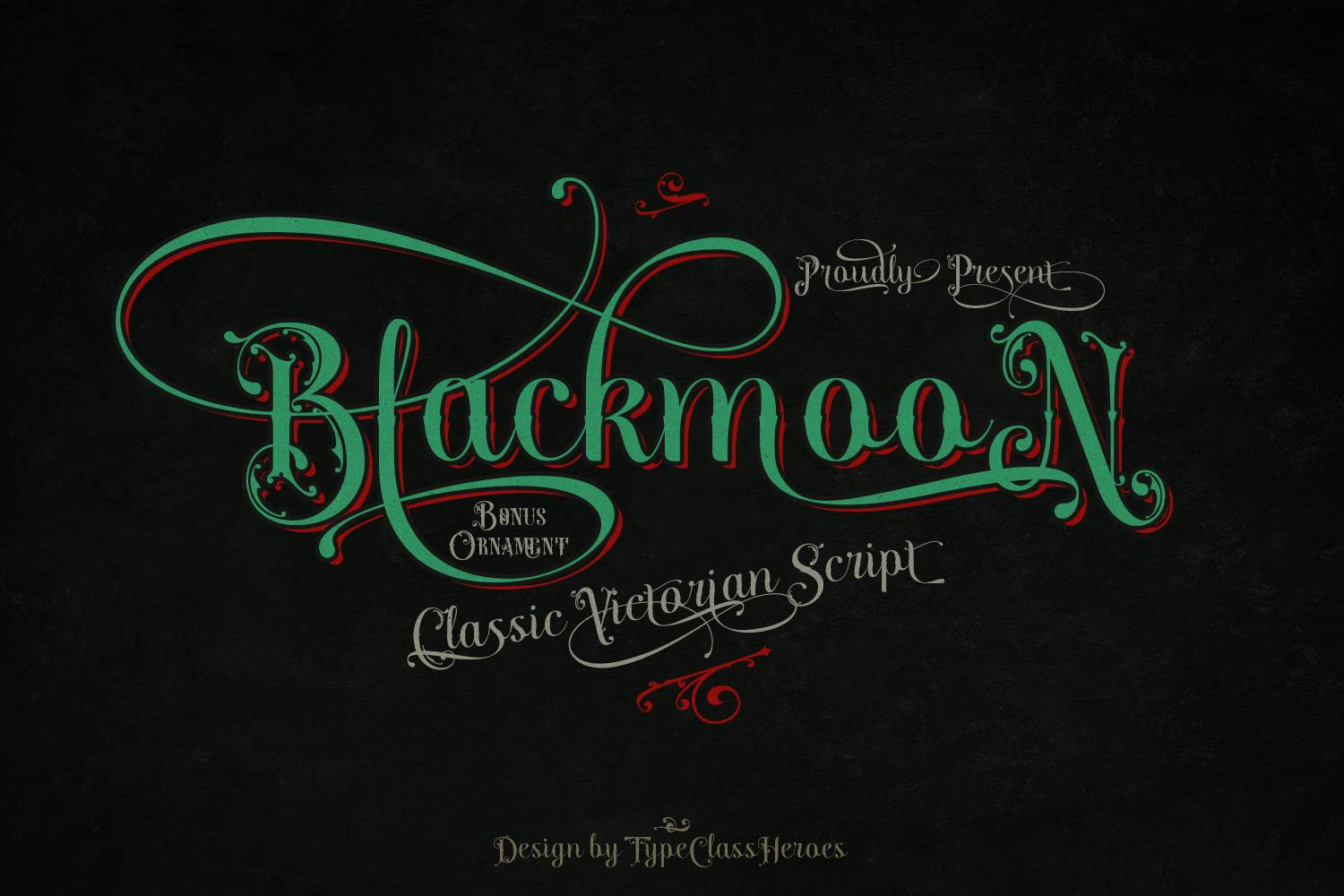
Blackmoon Classic Script Font
Perfect for wedding invitations, luxury branding, fashion editorials, product packaging, event signage, and social media designs.
The Blackmoon Classic Script Font excites designers with its elegant curves, flowing strokes, and timeless calligraphic beauty that radiates sophistication.
The Blackmoon Classic Script Font Free Download is the perfect typeface for designers who want to convey elegance, romance, and high-end appeal. Inspired by traditional calligraphy and refined handwriting styles, this font delivers graceful letterforms that create an air of exclusivity and charm. Whether you’re designing a luxury perfume label, a romantic wedding invitation, or an upscale fashion logo, Blackmoon Classic Script brings a touch of artistry and refinement to every project.
One of the greatest strengths of Blackmoon Classic Script Font is its versatility in balancing ornate beauty with readability. The flowing ligatures and smooth connections between letters make it ideal for both display purposes and more subtle design elements. Its decorative flourishes give projects a handcrafted feel, while its precise letter shapes ensure a professional, polished finish.
In branding, this font excels when paired with minimalist layouts and premium imagery. The contrast between clean visuals and the font’s luxurious curves creates a sophisticated identity that stands out in industries like beauty, fashion, and hospitality. For packaging design, especially in cosmetics, gourmet products, and high-end beverages, Blackmoon Classic Script adds instant allure and brand value.
Social media content creators will appreciate how this font transforms quotes, promotional graphics, and product highlights into visually captivating posts. It pairs beautifully with gold textures, pastel color palettes, and soft photography, enhancing the romantic or luxurious mood of the design.